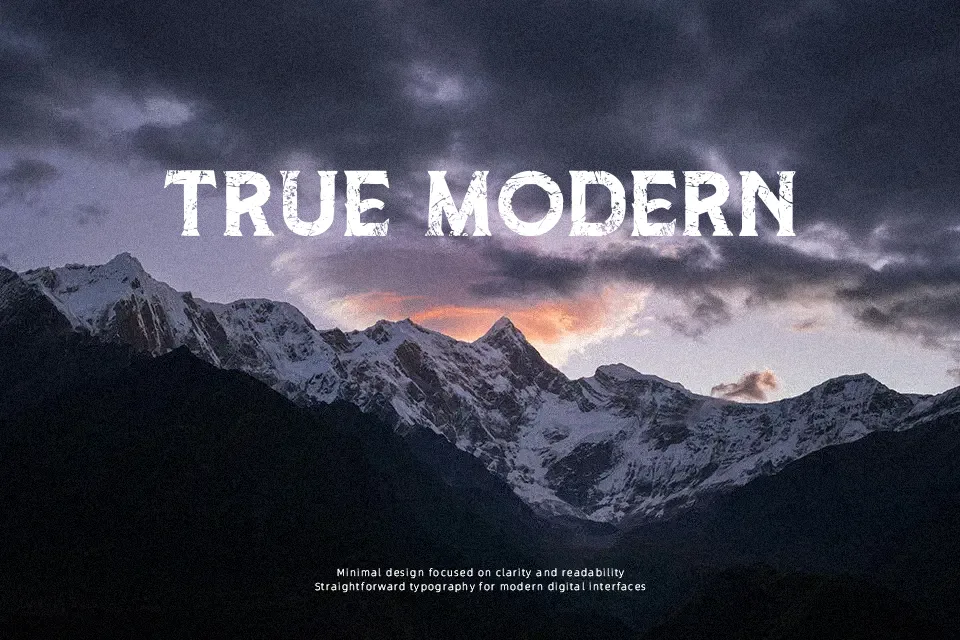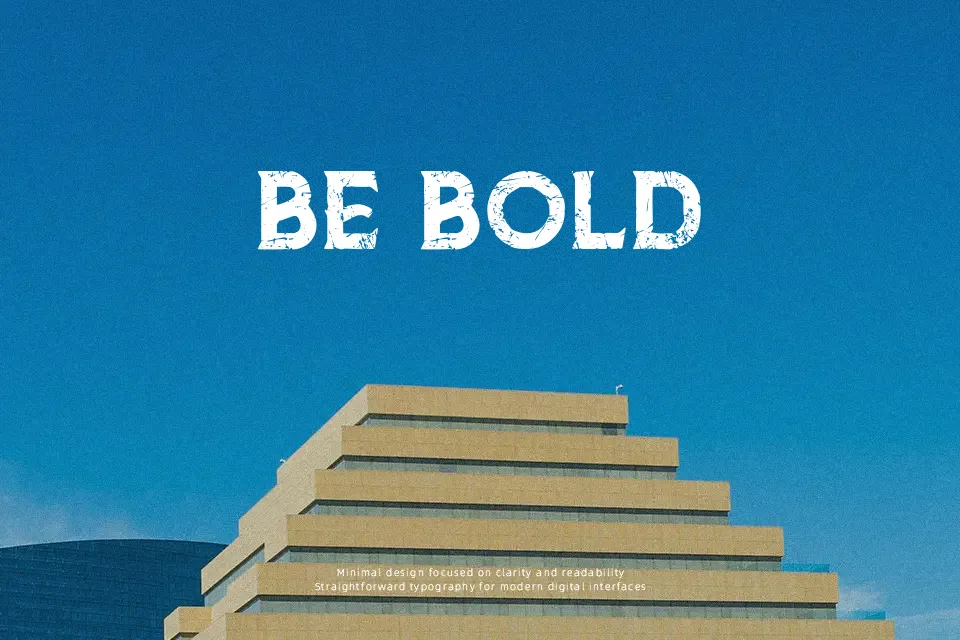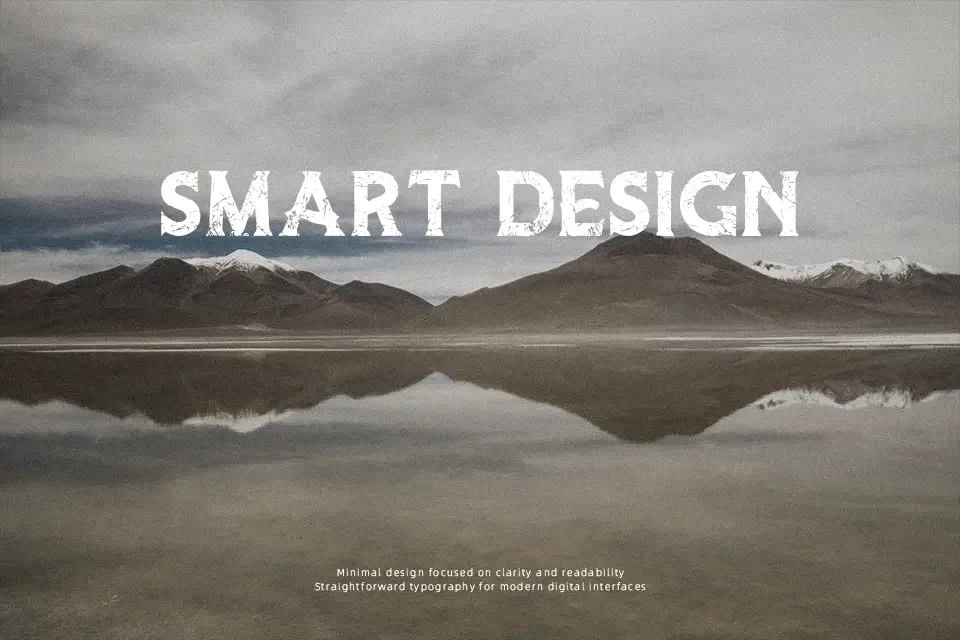
Vanrott Destroy Font
Designed by Riyadh Rahman
Vanrott Destroy Font presents a bold display design defined by heavily distressed surfaces and irregular eroded contours. Thick character strokes combine with prominent textural cutouts to produce an aggressive, weathered appearance that maintains strong visibility across large signage. Character widths remain relatively uniform, while the open spacing prevents neighboring distressed edges from colliding during display use. The rugged letterforms capture attention instantly on album sleeves and festival promotions, though intricate textural details quickly degrade into visual noise at smaller sizes. Consequently, the design proves less suitable for dense editorial layouts and extended body copy.
Best For: horror movie titles,rock concert posters,streetwear graphic tees,metal band merchandise
Not Ideal For: continuous body text,mobile interface labels,corporate reports,dense legal documents
Perfect for film, headline, and logo, with a bold and decorative style.